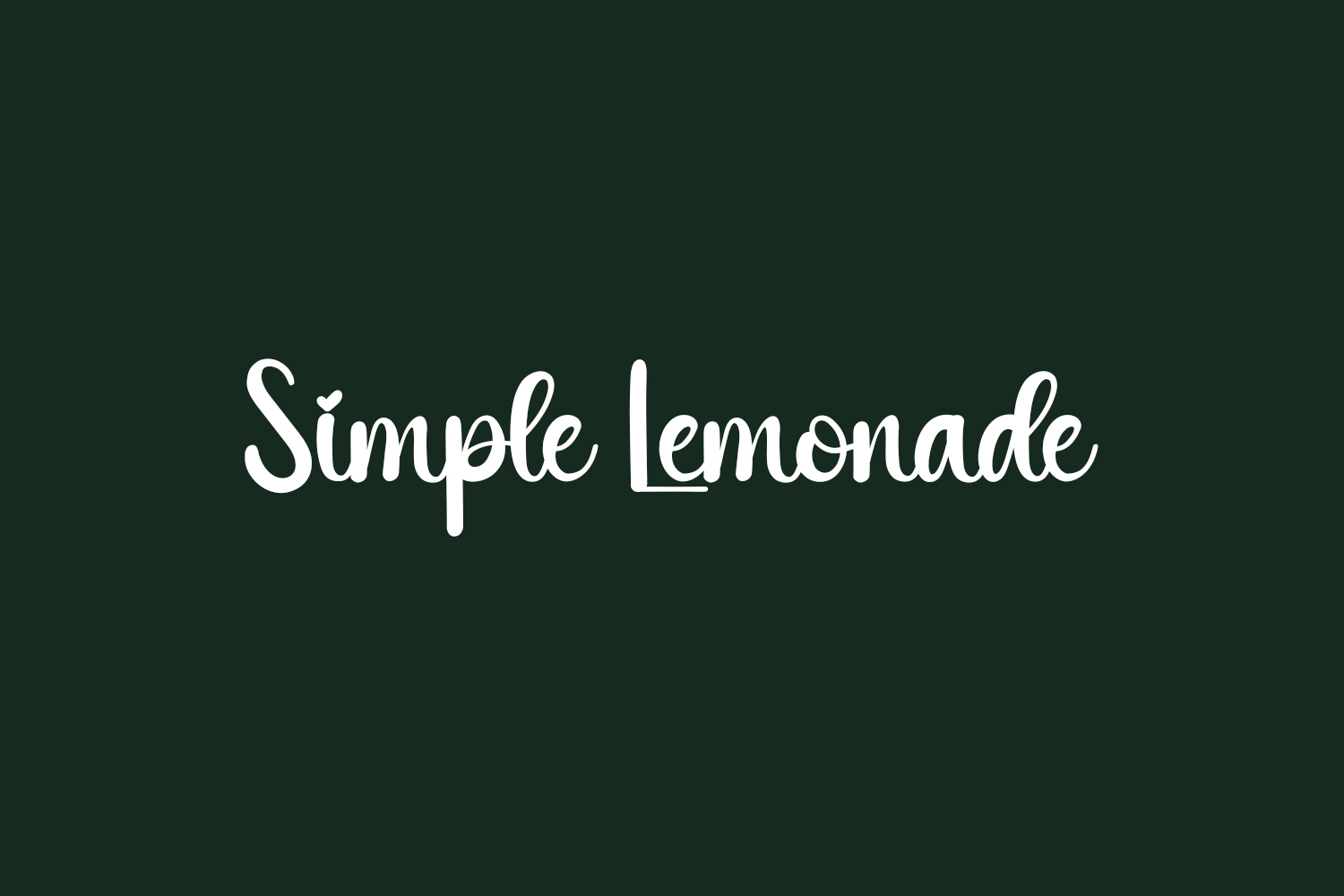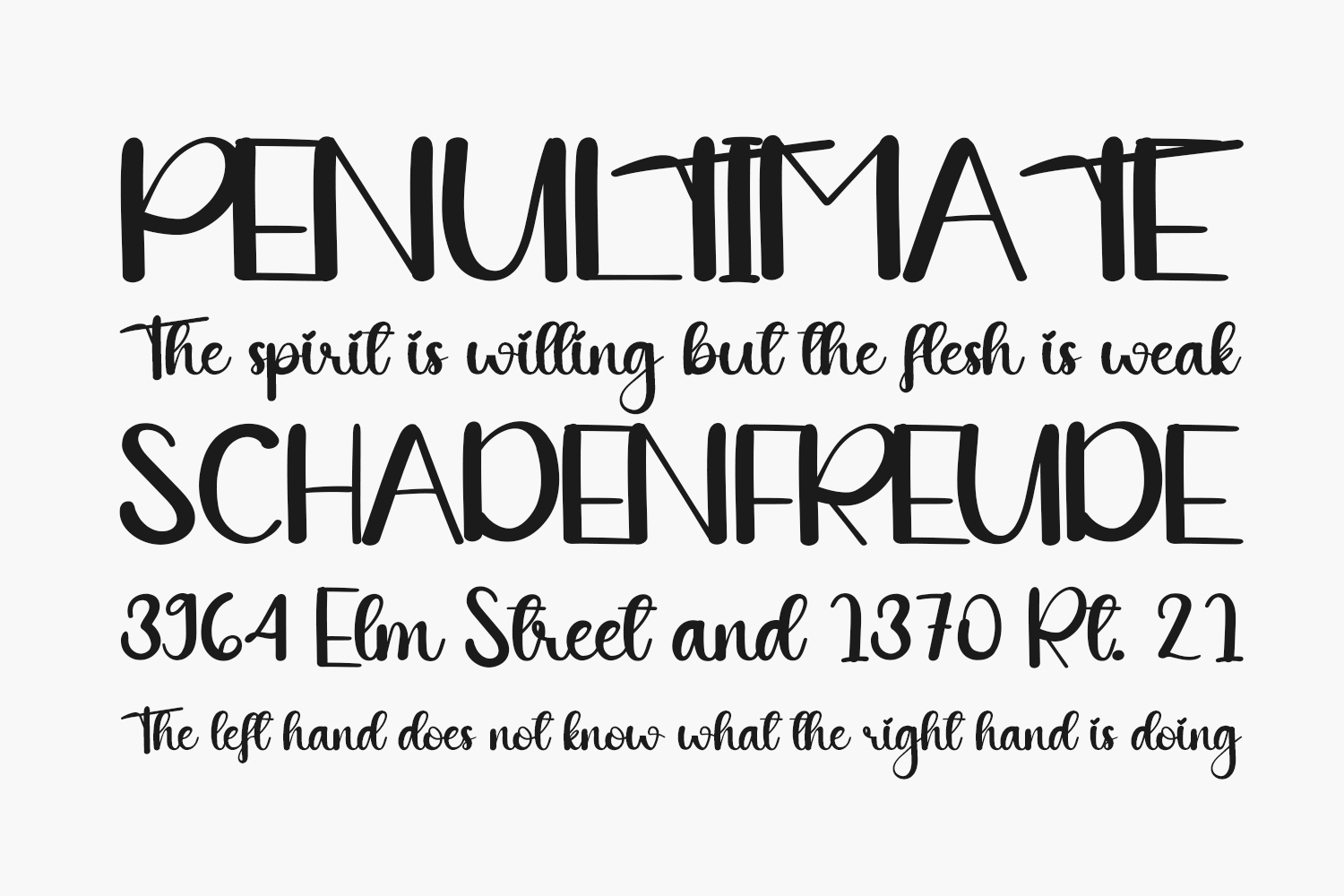
Looking for a delightful and charming font? Say hello to Simple Lemonade Free Font! Crafted with a sweet and friendly touch, it’s perfect for adding a touch of joy to your wedding invitations, cards, or any design project that needs a cheerful vibe. Download the font for free if you need it for personal use or purchase the full version for commercial use.